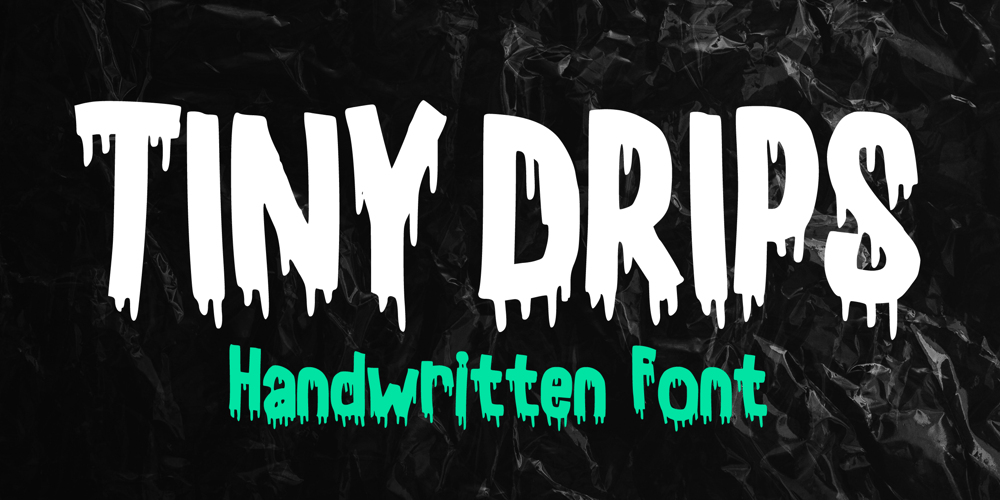
Tiny Drips
Tiny Drips font
Tiny Drips Font Family was designed by Gabriel Valentinus and published by Mvmet. Tiny Drips contains 1 styles and family package options. Tiny Drips is a very cool ink dripping display font. You can use it for your graffiti street art style and Halloween themed needs! You can use it for anything ranging from t-shirts and clothing, for your book designs, magazine, greeting cards, stickers, posters, banners, or anything that needs a cool touch. Try it to create fabulous designs and feel the fun and good vibes with it!